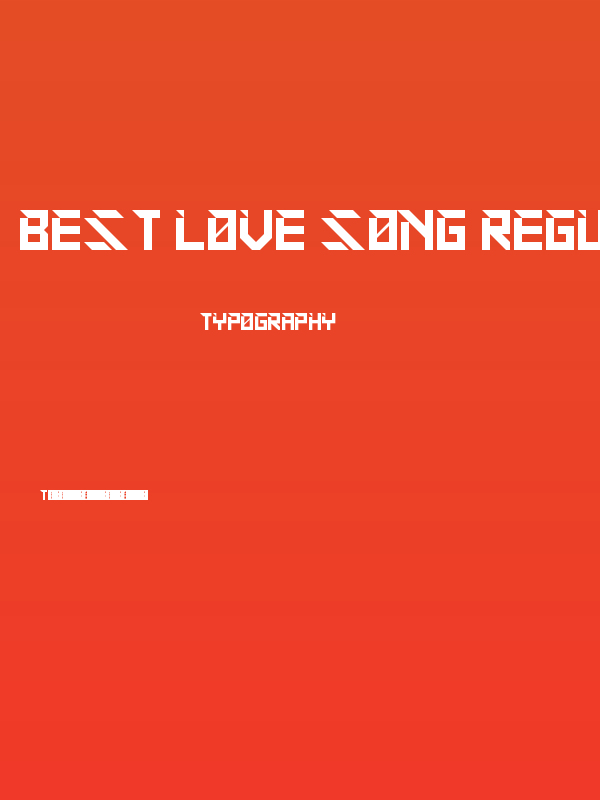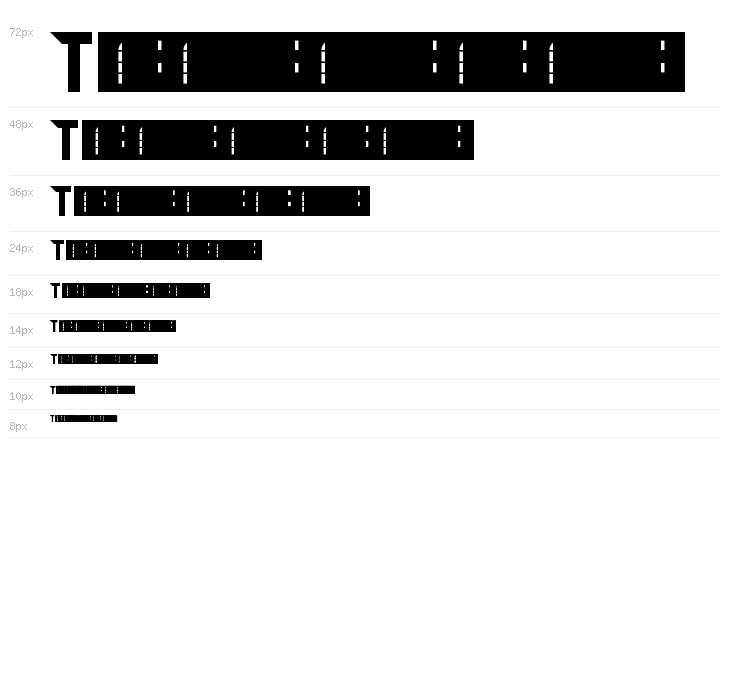
Best Love Song Regular Font
Best Love Song Regular Description
This font features a bold, geometric design with sharp angles and a futuristic aesthetic. The uppercase letters are particularly striking, with a blocky, angular style that suggests a sense of strength and modernity. The lowercase letters maintain this geometric theme, though they are not present in the image. The numbers and special characters are consistent with the overall design, offering a cohesive look. The font's unique style makes it suitable for projects that require a modern, edgy feel. Its boldness and distinctive appearance make it ideal for attention-grabbing headlines or logos.
| Proposed Projects | Ideal for modern branding, tech-related projects, futuristic posters, and eye-catching headlines. |